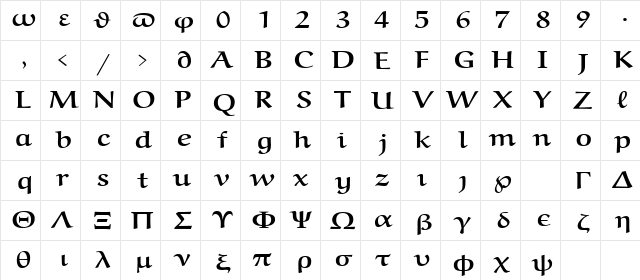
eurb5 Regular
Design Context for eurb5 Typeface
eurb5 is a composed and adaptable typeface that performs quietly and consistently across a wide range of design contexts.